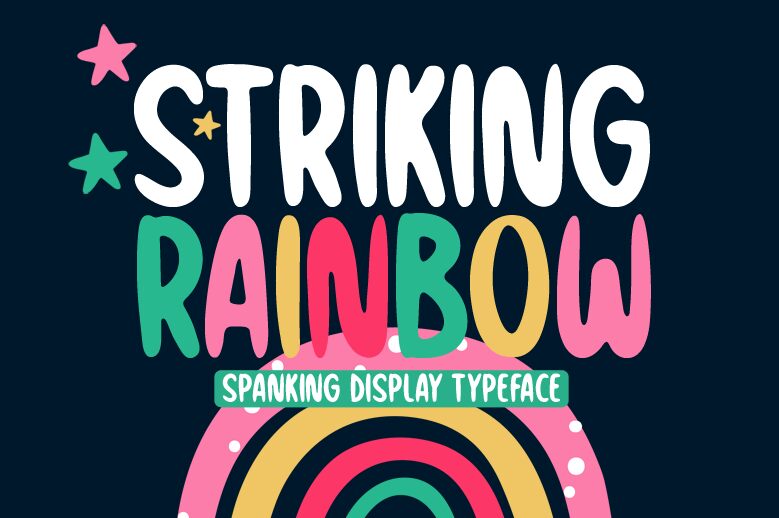
Striking Rainbow
Meet Striking Rainbow - a vibrant and bold display font designed by Md Shohail Bhuian. This eye-catching typeface features a condensed width and bold weight, perfect for titles, headlines, logos or any project that needs to make a statement. The cartoon style of Striking Rainbow adds a playful touch to your design, making it suitable for children's books, comic strips, posters and more. With its rainbow-like colors and unique letter shapes, this font is sure to stand out in any project. Make your designs pop with the one-of-a-kind Striking Rainbow font!